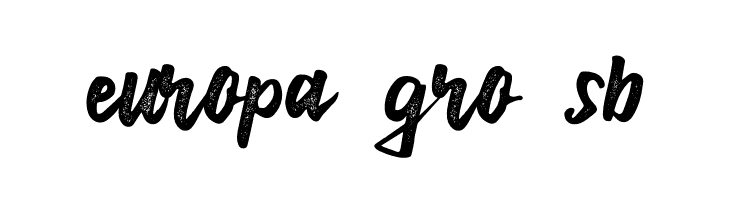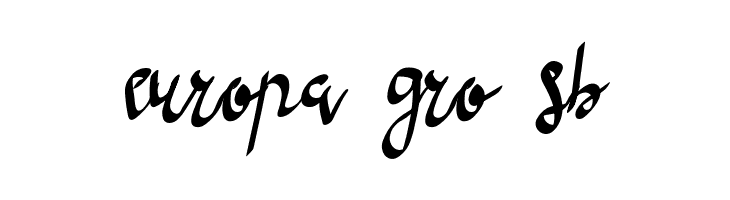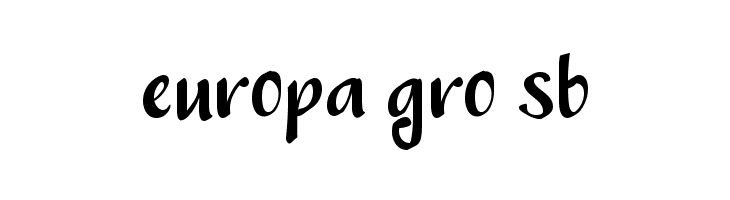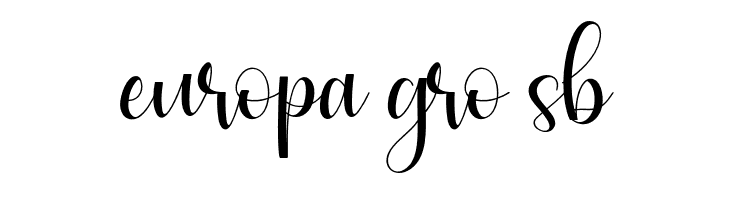
• Anoma One
A bold, expressive script font with high contrast and ornate letterforms.
• Anoman Obong
A bold, expressive handwritten font with dynamic and playful characteristics.
• Anoman Obong
A bold, expressive handwritten font with dynamic strokes.
• anome ibul
A thin, modern font with elongated, narrow letterforms and consistent stroke width.
• anome ibul bold
A modern, geometric font with consistent stroke width and rounded edges.
• anome ibul bold cursive
A bold, cursive font with a dynamic and elegant style.
• anome ibul bolder
A bold, rounded, and modern font with a playful and approachable style.
• anome ibul cursive
A sleek, cursive font with elongated, flowing lines and a modern elegance.
• anonim
A lively and elegant script font with a handwritten touch.
• Anonim
A bold, textured script font with a hand-painted, artistic style.